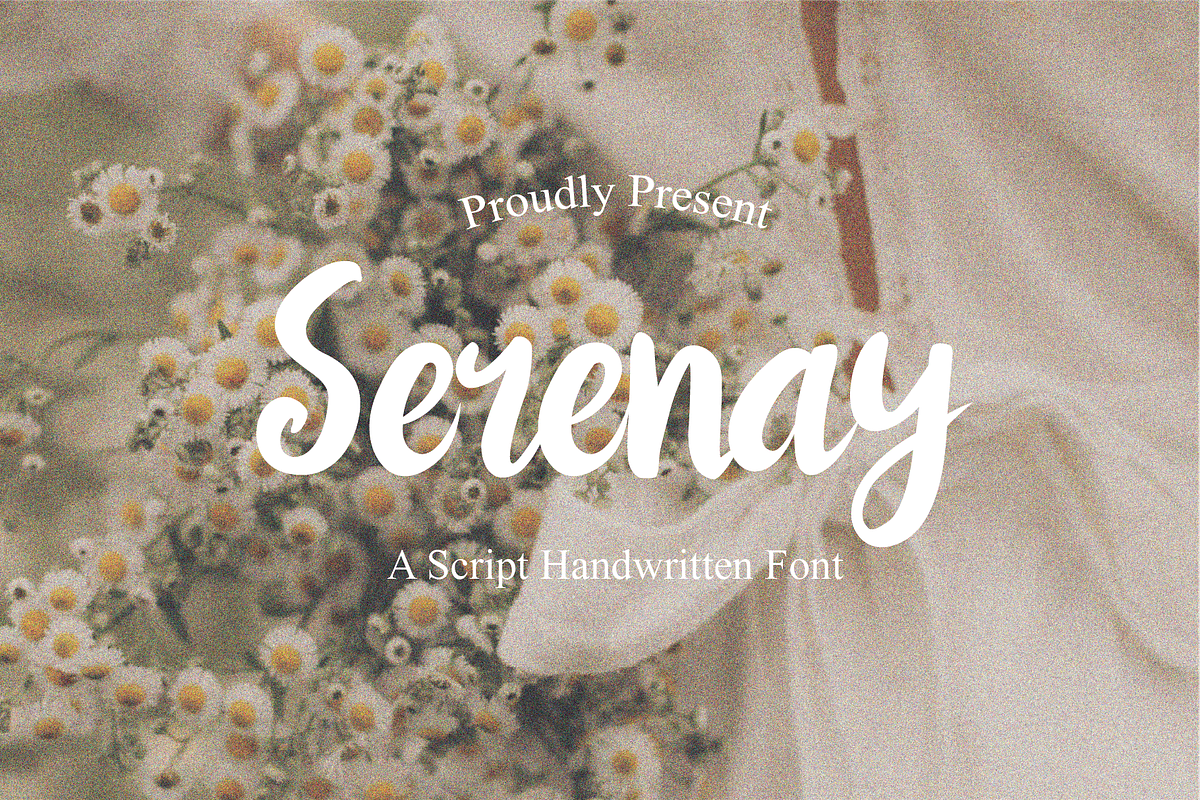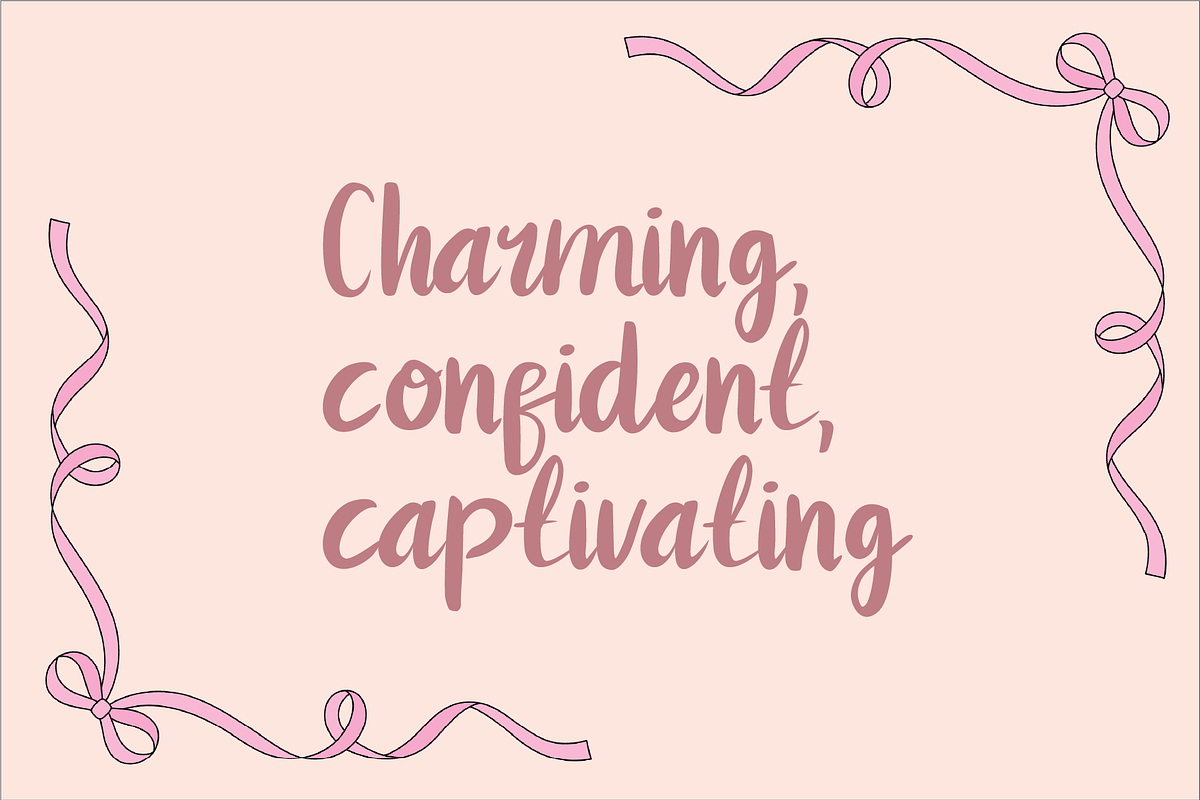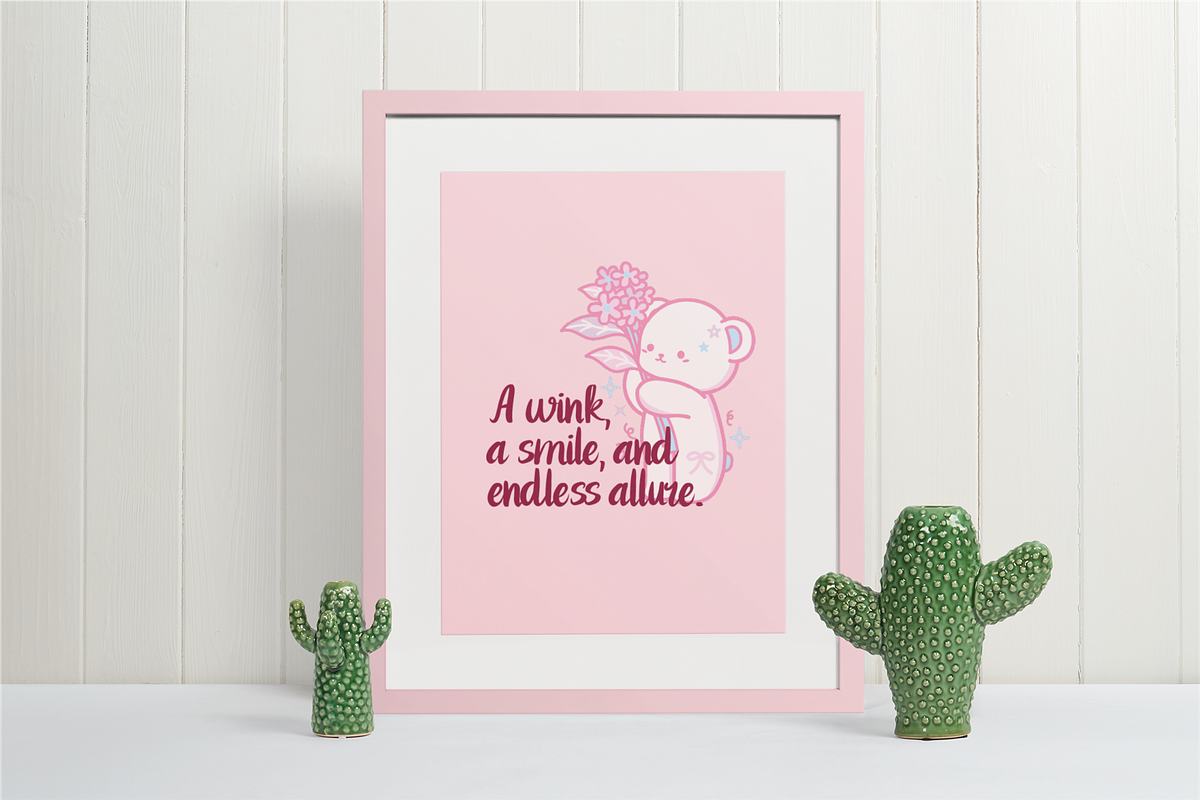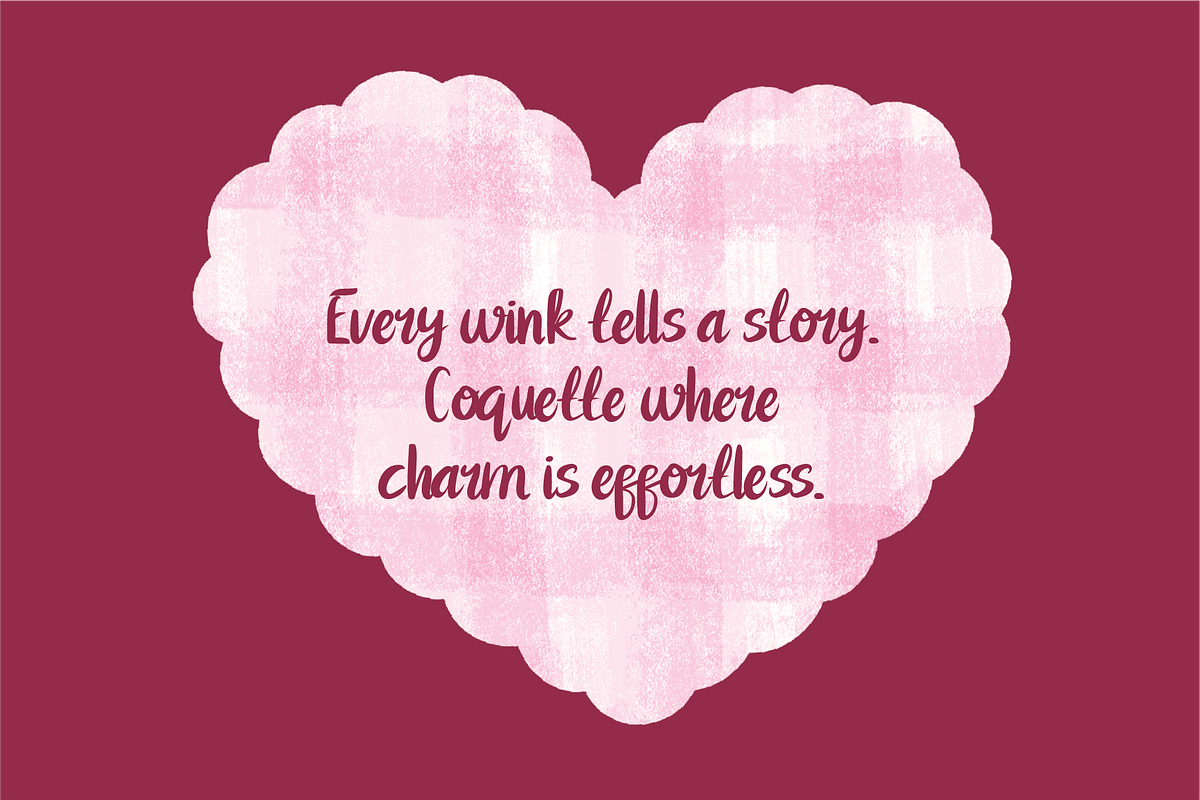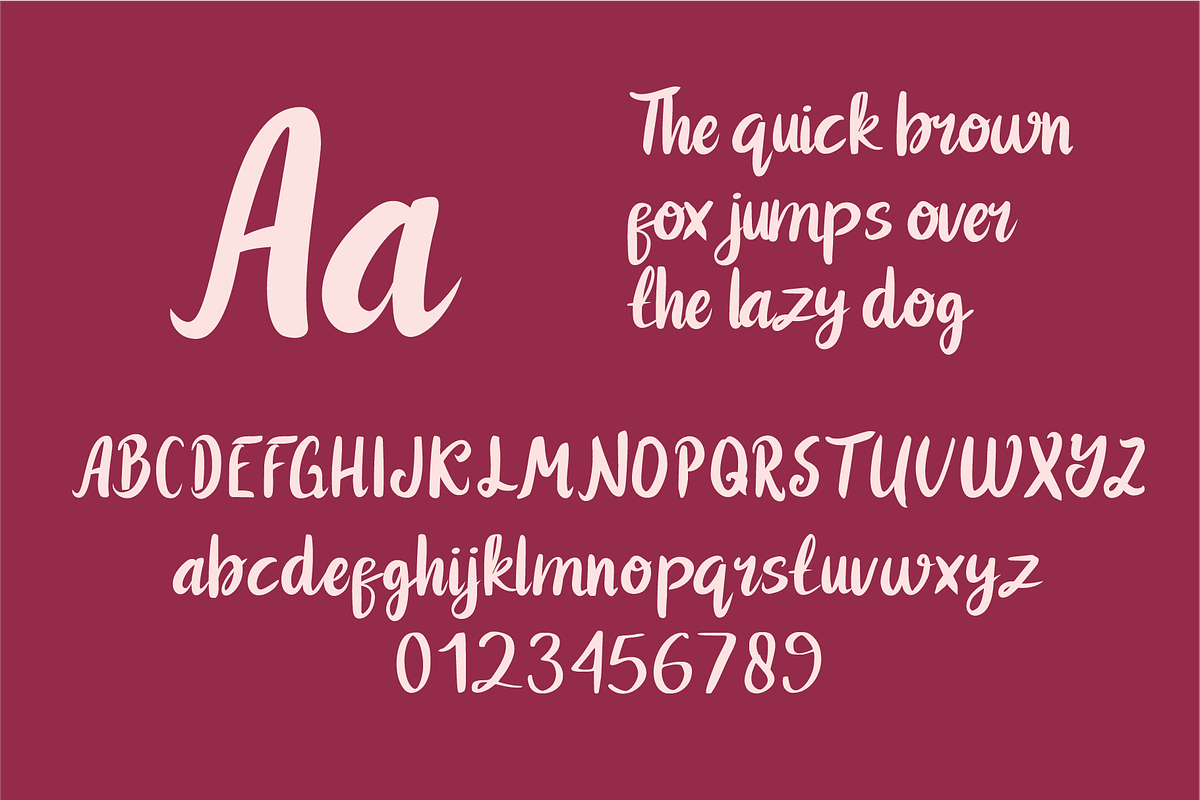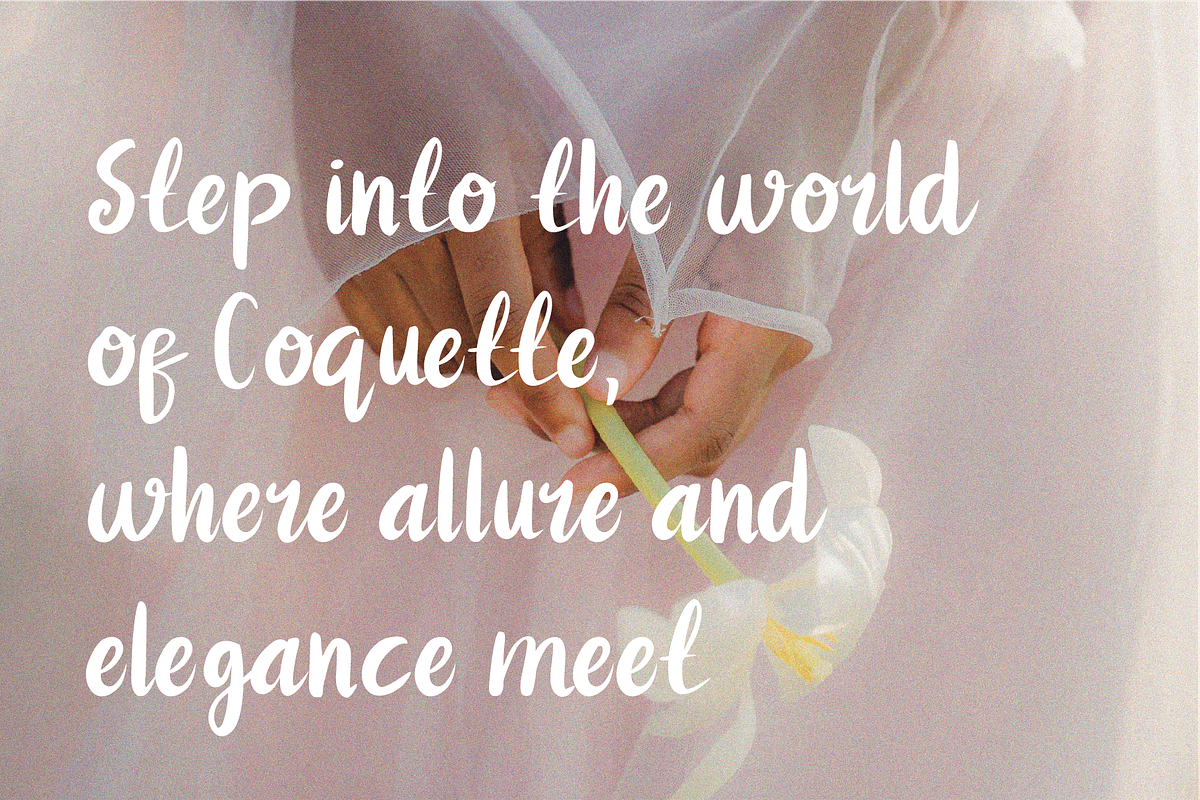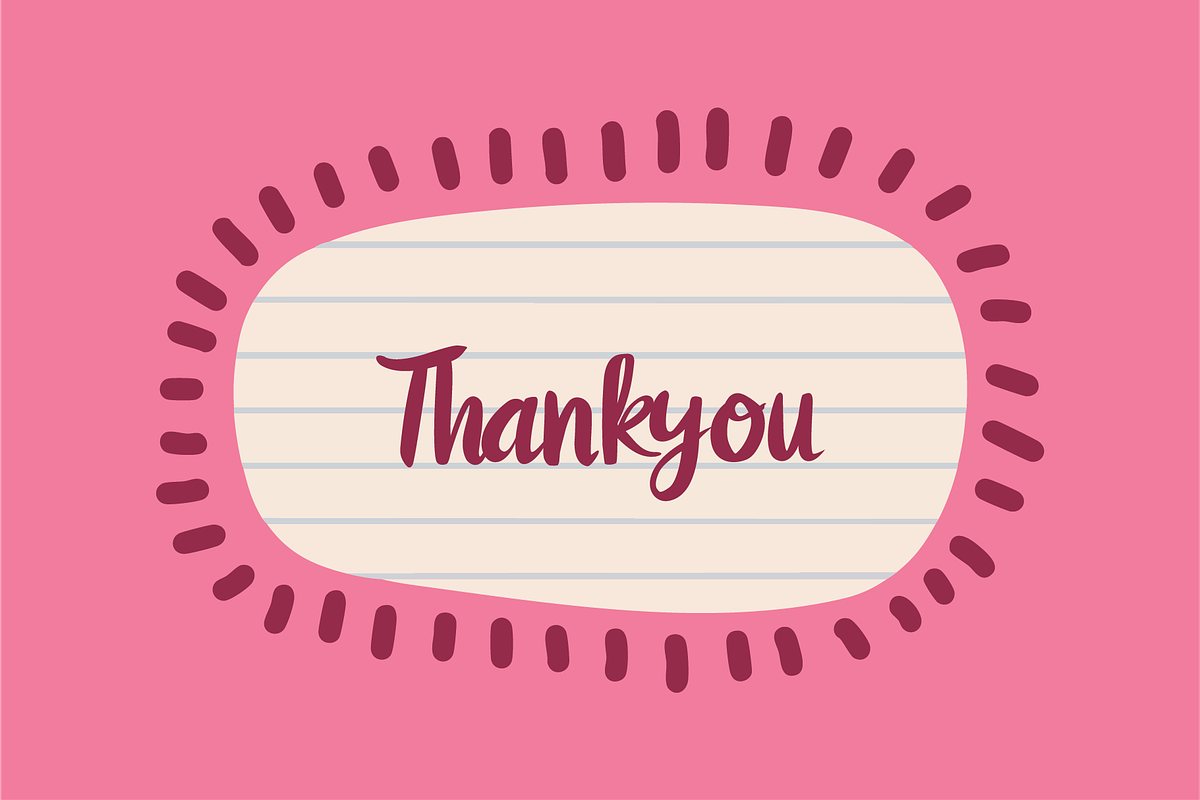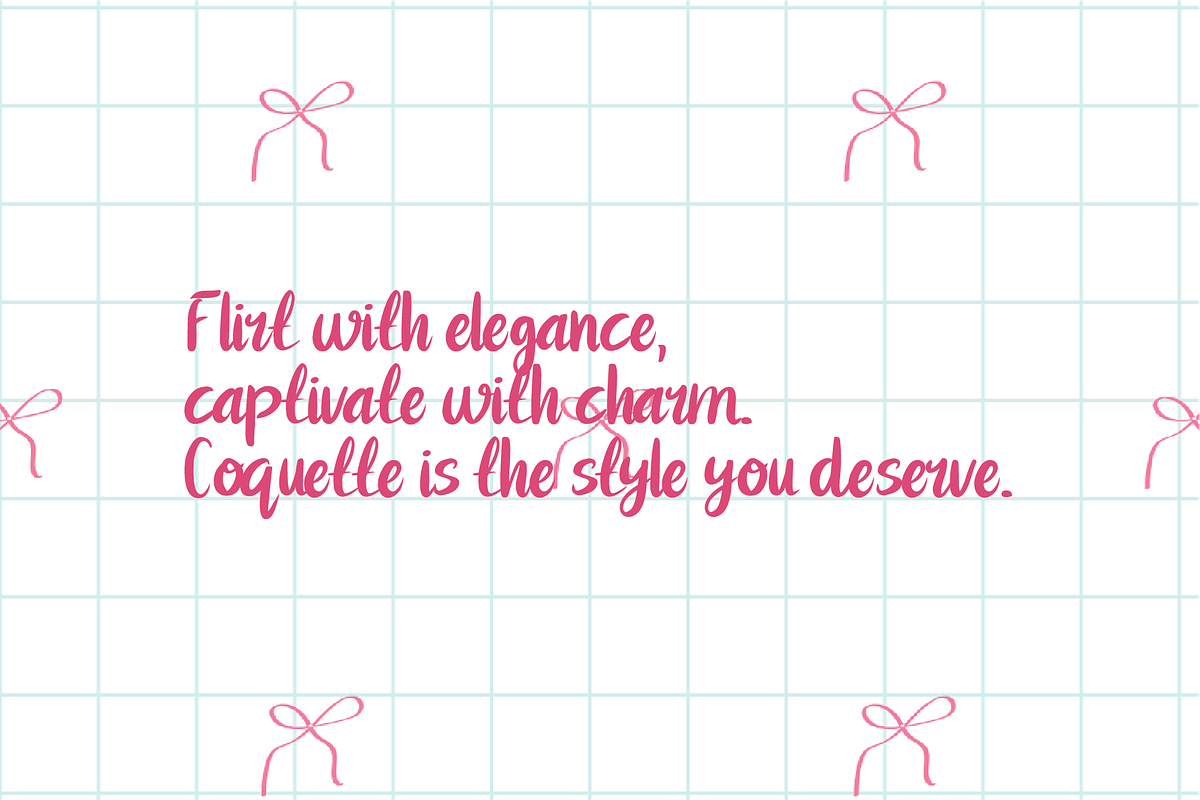
Serenay | Script Handwritten
Serenay font features an elegant, flowing handwritten design with smooth, curved strokes and a natural, personal touch. The letterforms are slightly connected, creating a fluid and graceful look, with a balanced mix of refinement and warmth.